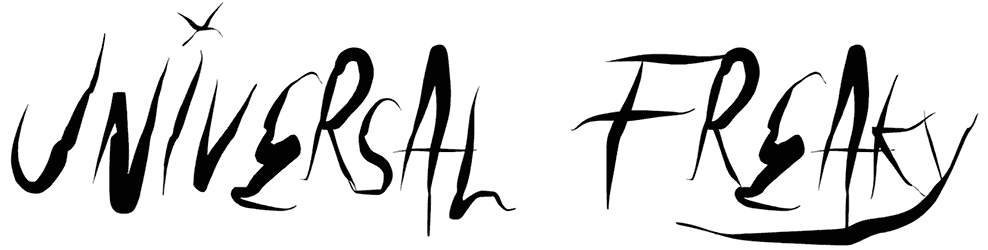
Universal Freaky Font
Are you seeking a way to make your design more abnormal or want to put a deadly message in it? As a horror font, Universal Freaky will lend you a hand to scare your viewers with its eerie and dark vibe.
This fancy font consists of hand-scratched letters that can be a chilling item for novel designs. There is no support for lowercase and punctuation, but it would be a cool choice for various designs like posters, games, apparel, etc.